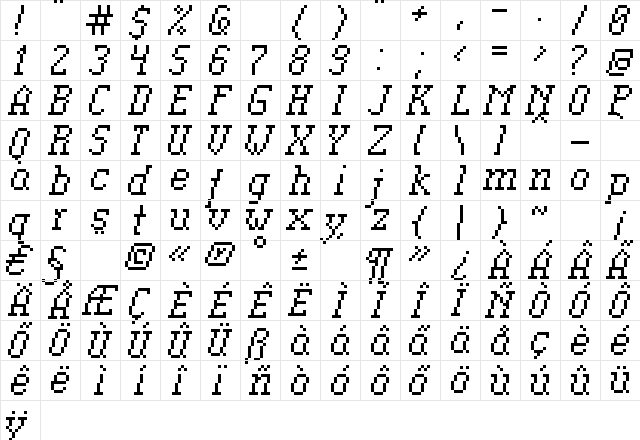
Cr-03 Regular
Design Context for Cr-03 Typeface
Cr-03 takes a measured approach to typography — its balanced proportions and neutral character make it a reliable workhorse for both digital and print work.